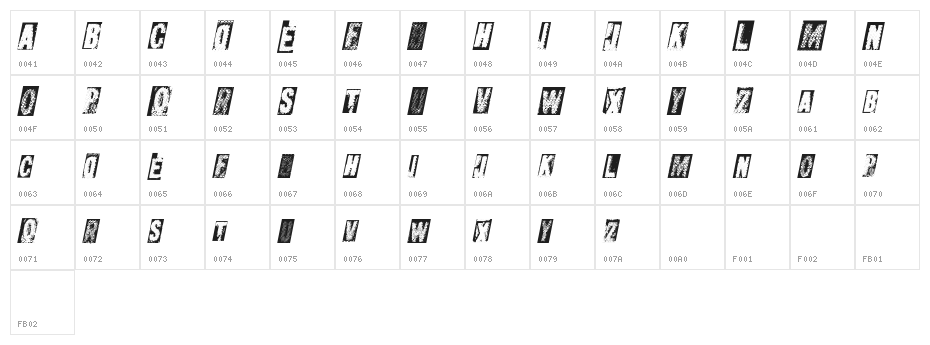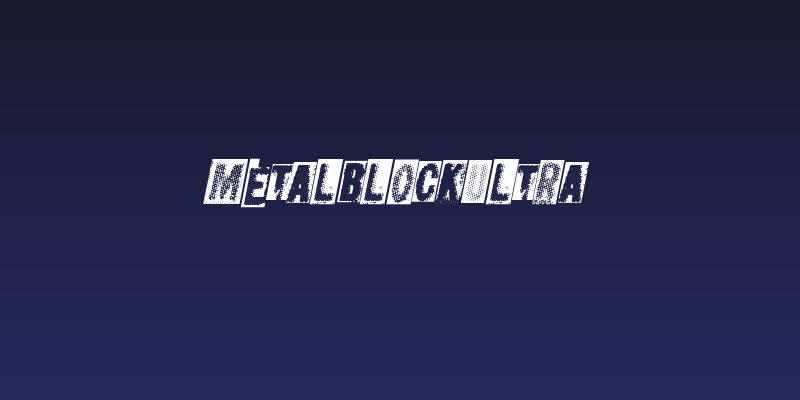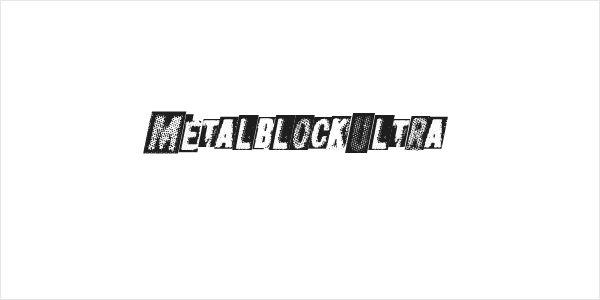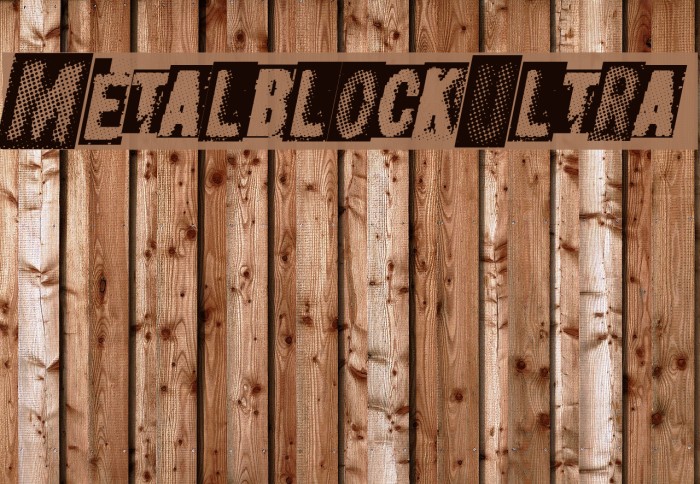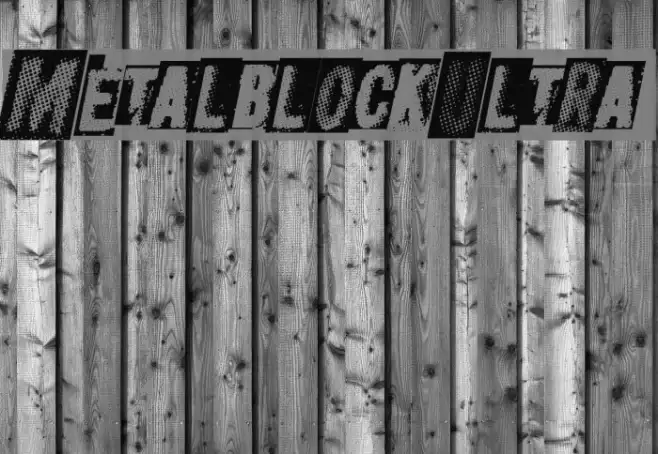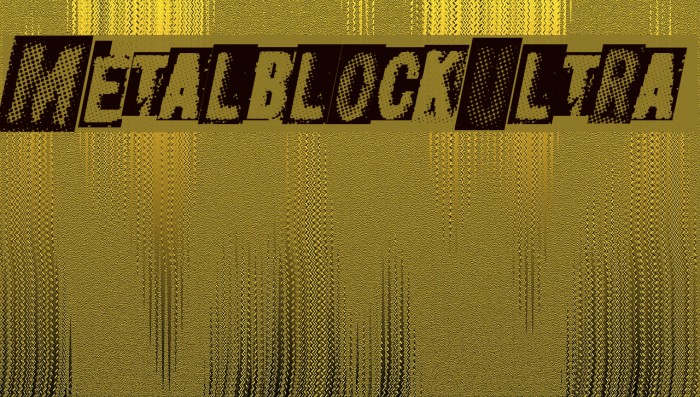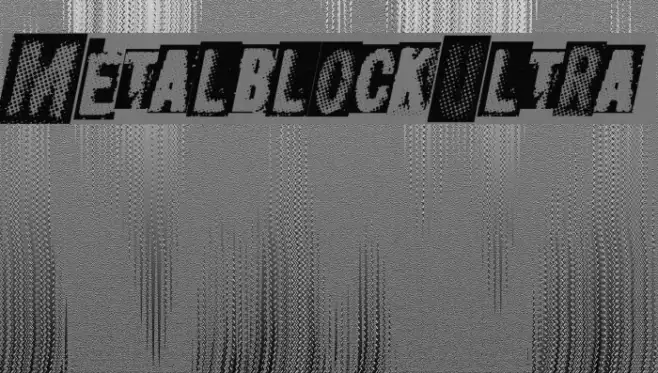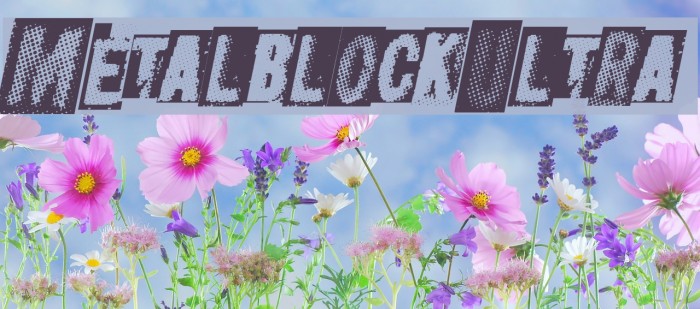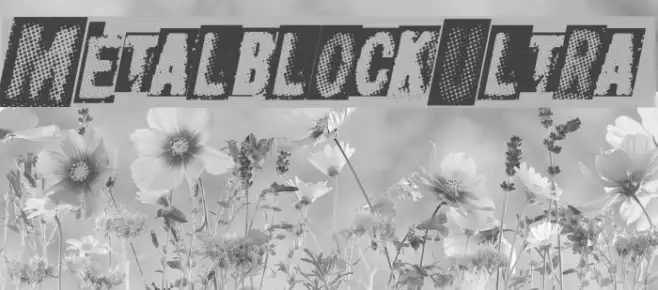
MetalblockUltra Font
This font features a bold, dynamic style with a distressed, textured appearance reminiscent of comic book art or vintage printing techniques. The characters are capitalized and have a blocky, geometric form, each letter filled with a halftone pattern that adds depth and visual interest. The font's design is striking and attention-grabbing, making it ideal for projects that require a strong visual impact. The unique texture gives it a gritty, industrial feel, suitable for themes that are edgy or urban.
| Overall Style | Vintage, Decorative |
| Proposed Projects | Ideal for comic book titles, posters, album covers, and urban-themed branding. |